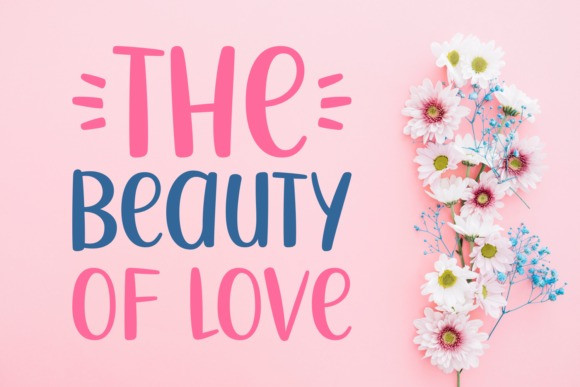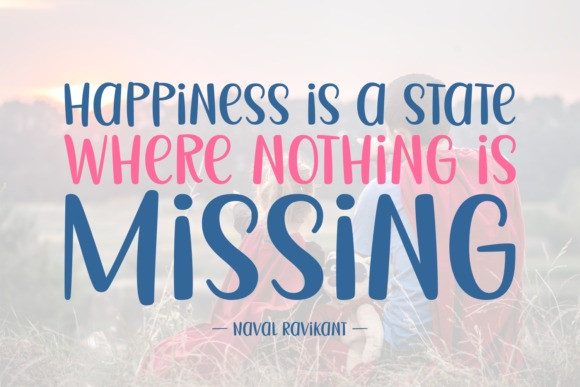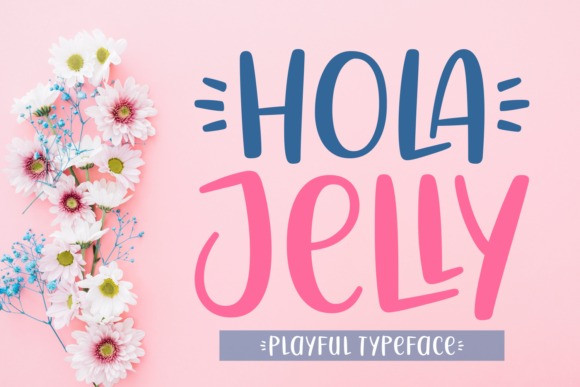
Hola Jelly Font
Hola Jelly Font is a fun, friendly and jolly display font. It embodies playfulness and authenticity and is the perfect choice for any children activity or school project.